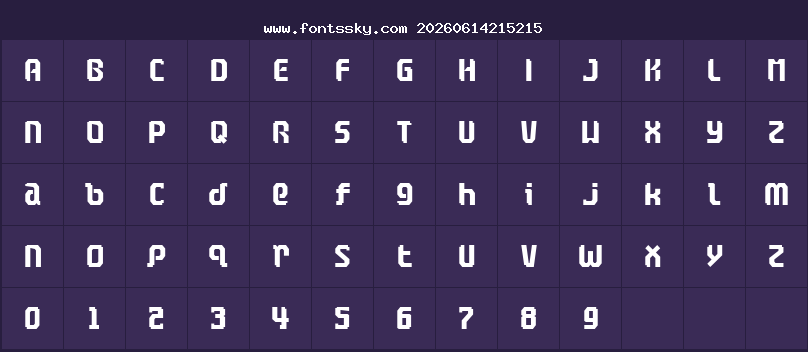
• Font Name: Stifly
• Full Font Name: Stifly
• Designer: Toni Setiawan
• Manufacturer: Namara Creative
• Description: Make it Simple but have an Significant Impacts
About Stifly.ttf
Stifly.ttf is a modern, elegant sans-serif font designed for ultimate readability and visual harmony. Perfect for branding, headlines, web design, and print materials.